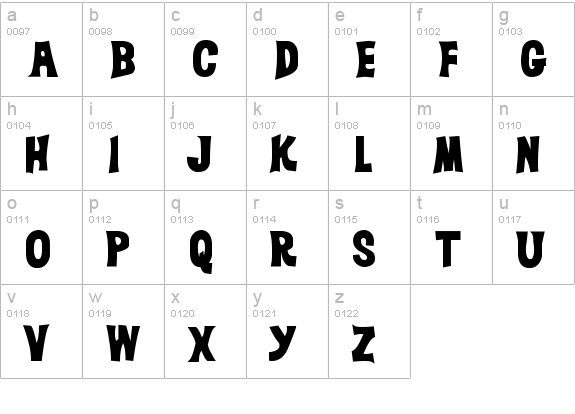
DickVanDykeHeavy Font Details
DickVanDykeHeavy font is a bold and striking typeface that exudes a sense of strength and confidence. Its thick and heavy letterforms make a powerful statement, perfect for headlines, logos, and branding projects that demand attention. The sharp edges and precise lines of this font give it a modern and dynamic feel, while still maintaining a classic elegance. What's even better is that DickVanDykeHeavy font is available for free download at FontsMarket.com. This means that you can add this impactful typeface to your design arsenal without any cost, making it a valuable and versatile asset for your creative projects. Whether you're working on a poster, website, or any other design project, DickVanDykeHeavy font will help you make a bold statement and leave a lasting impression. Download it today and unleash the power of this stunning font in your designs!